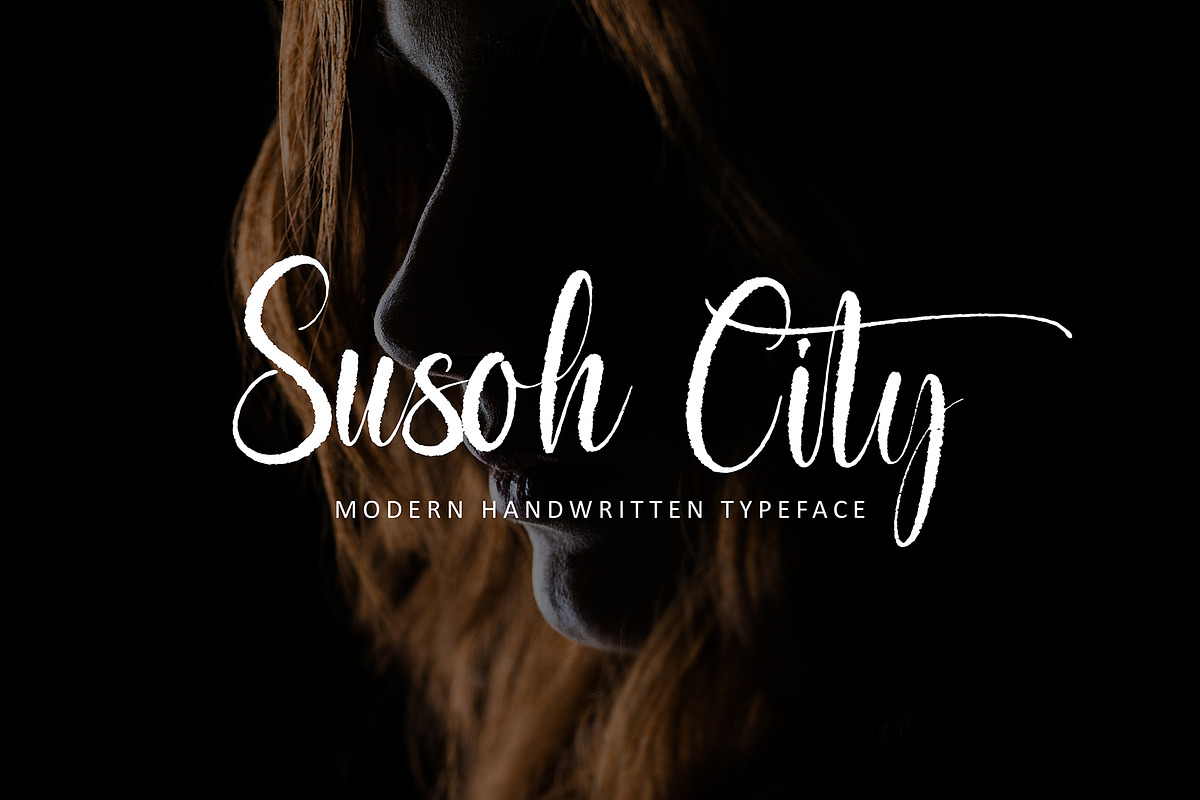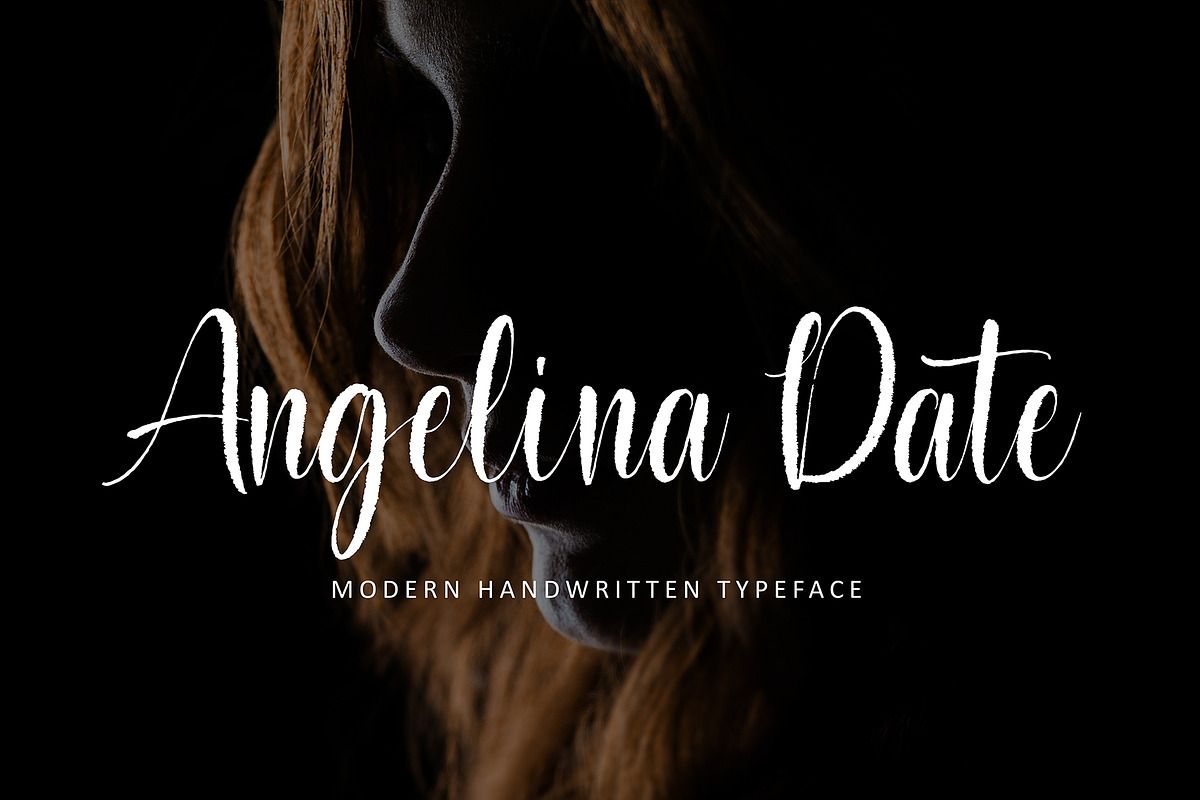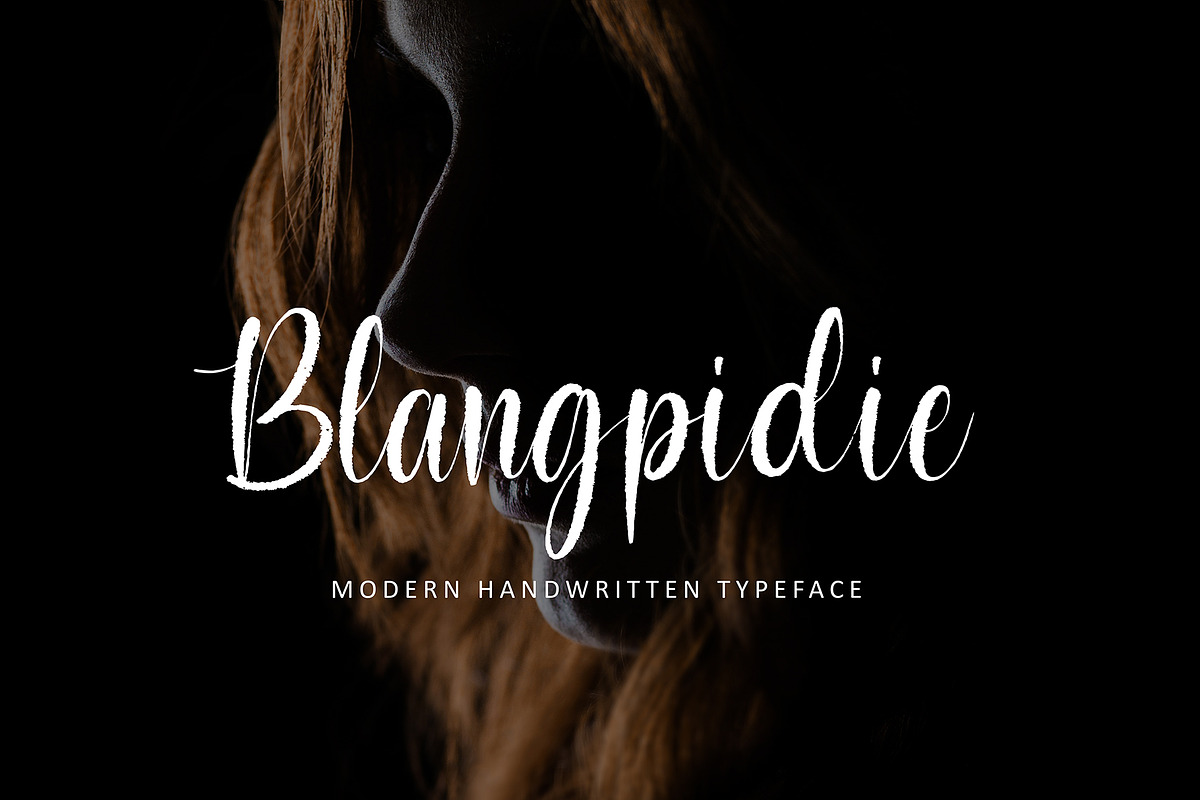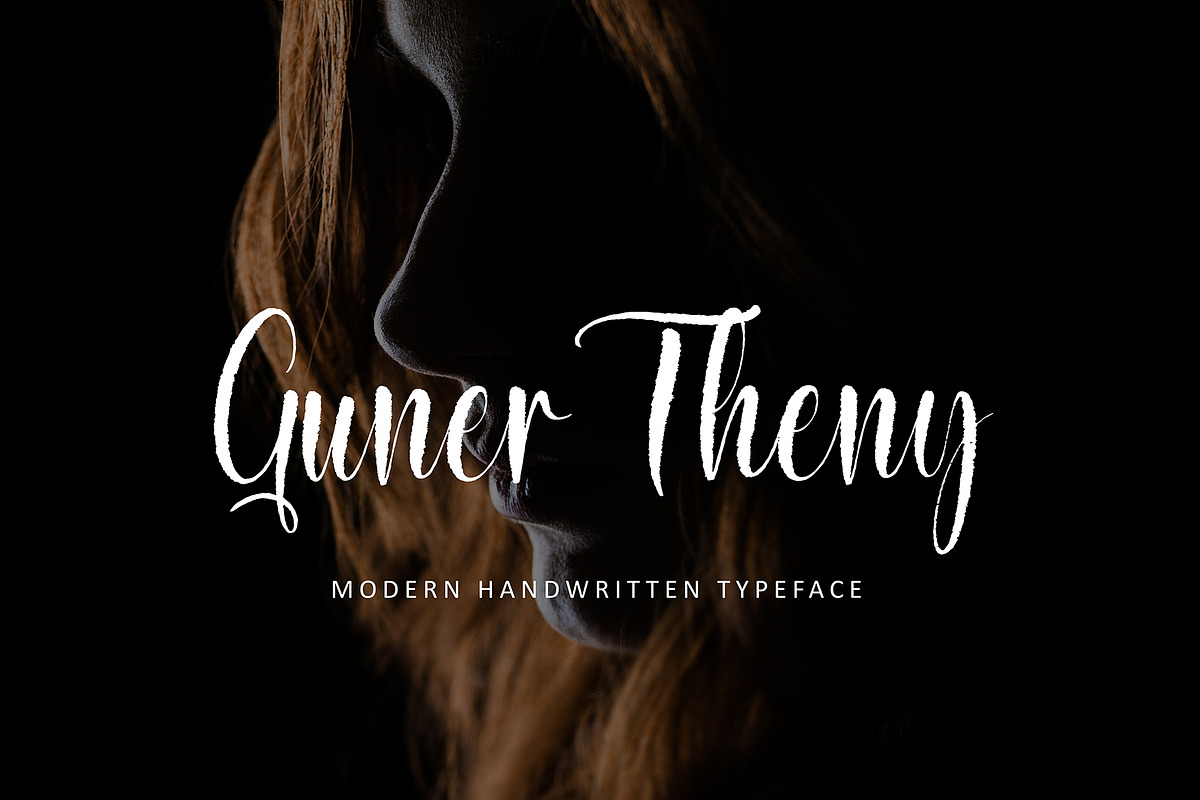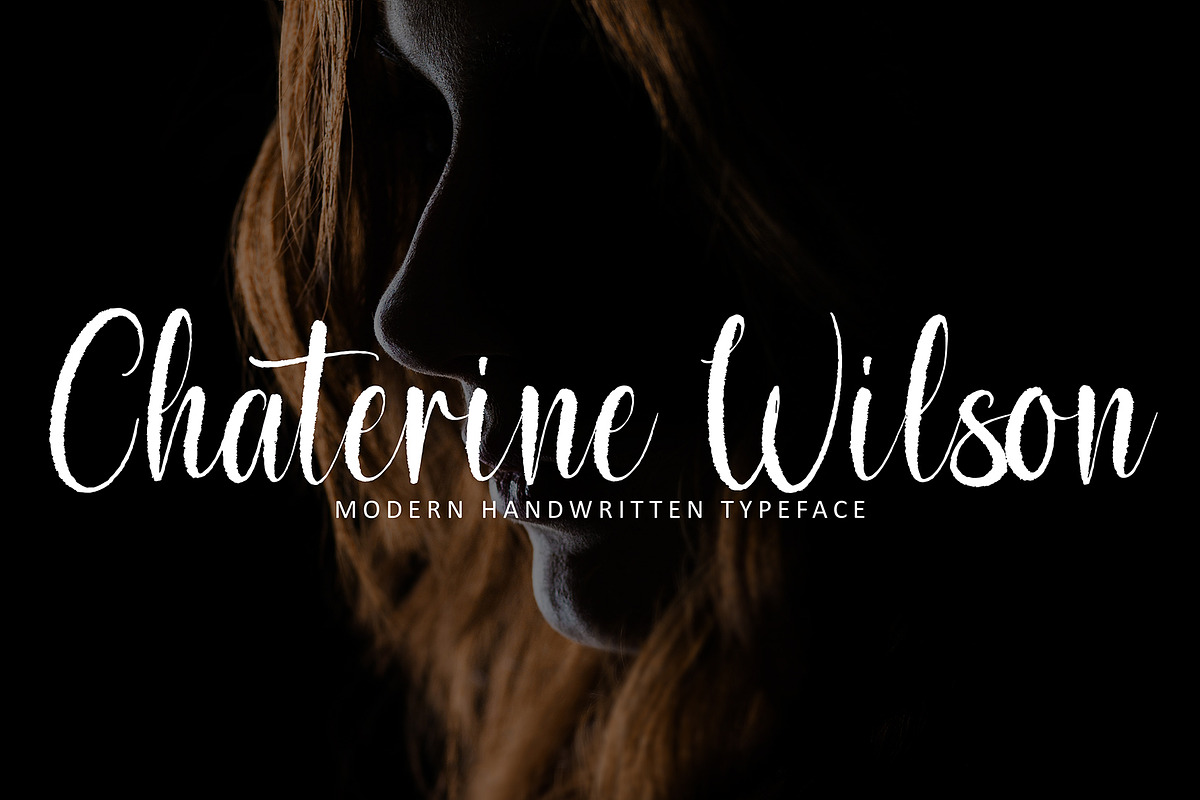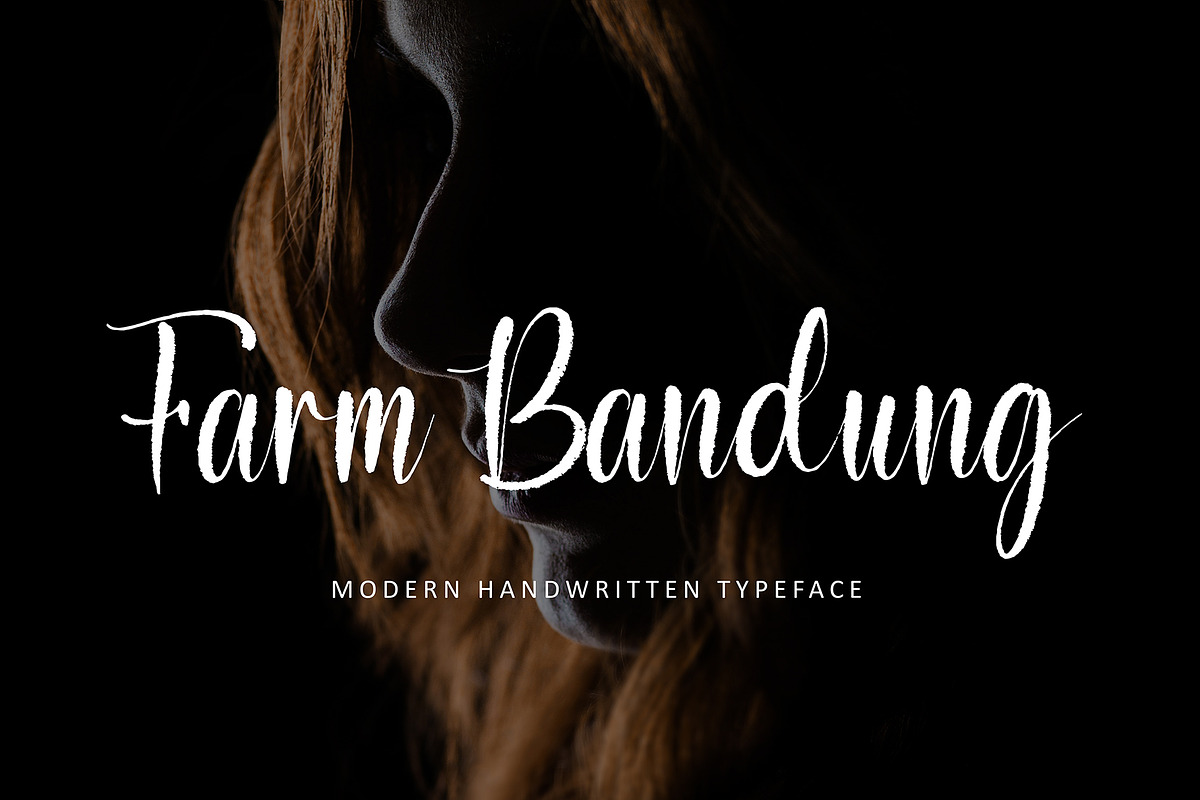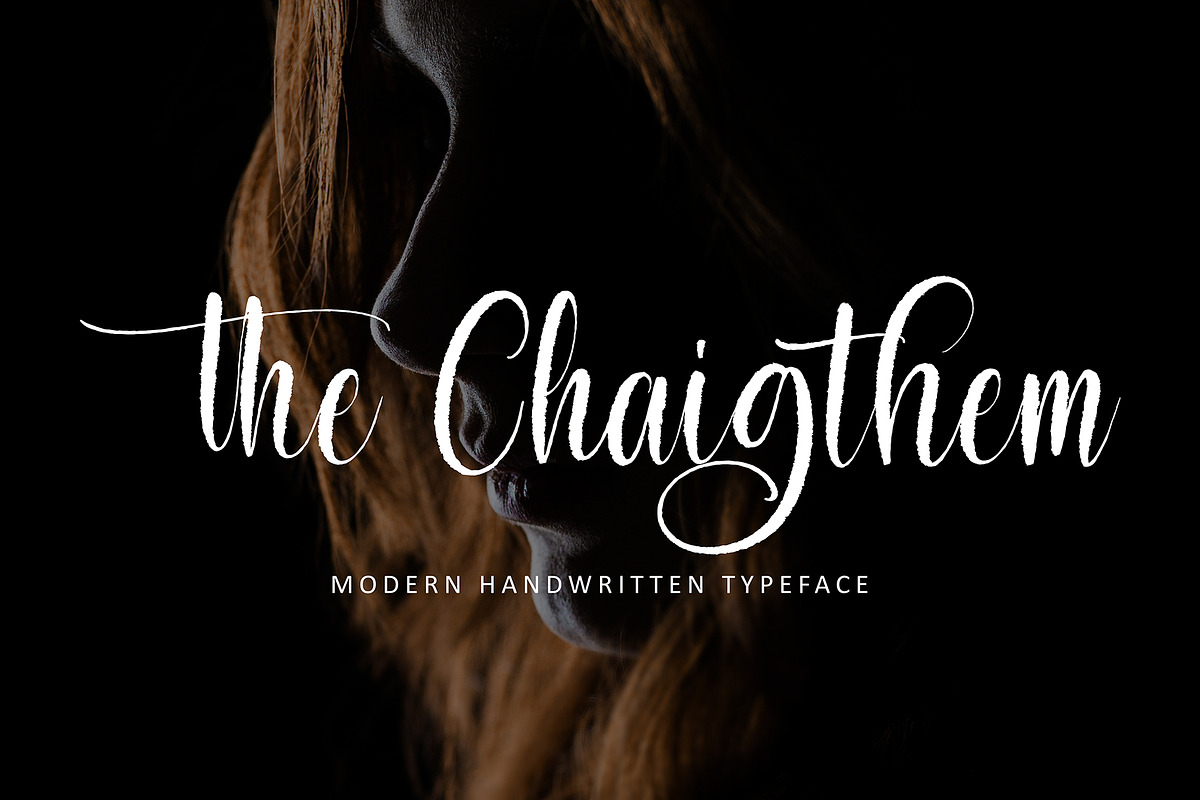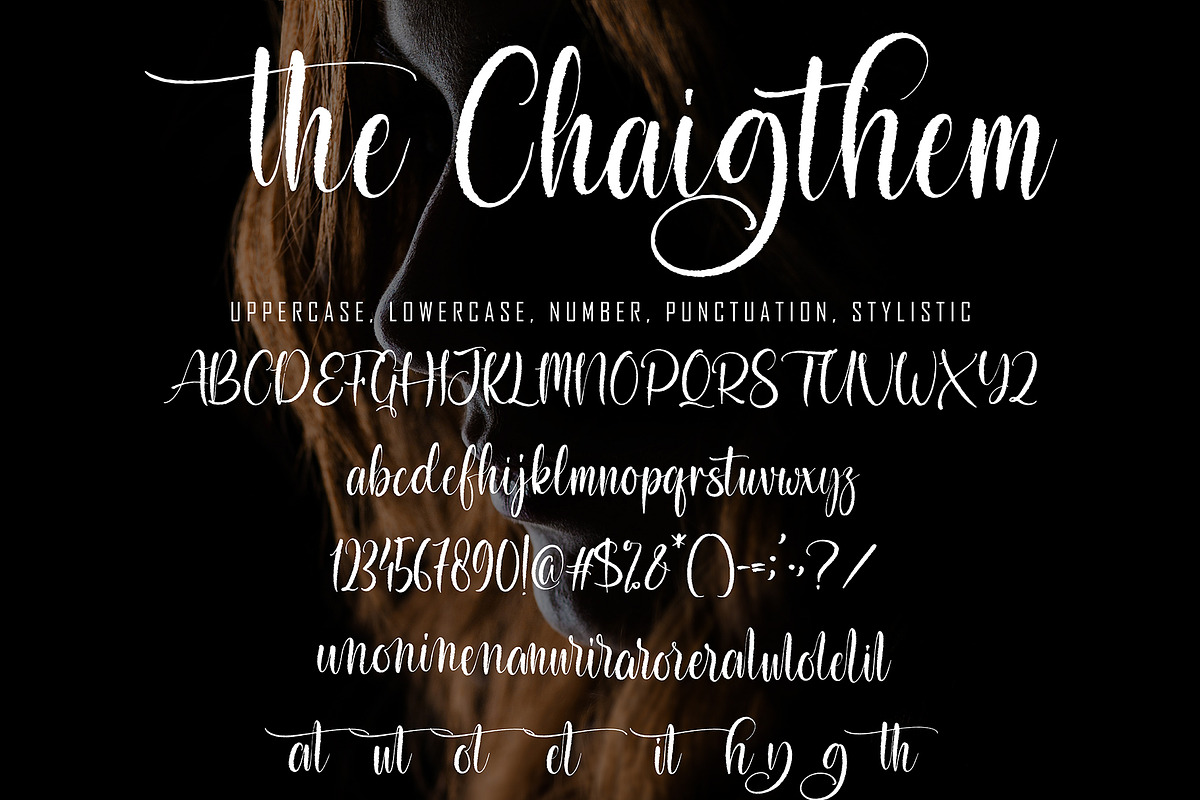
The Chaigthem
The Caigthem font with new style, this font will perfect for many different project ex: quotes, logo, blog header, poster, banding, letter, invitation, stationery, etc...